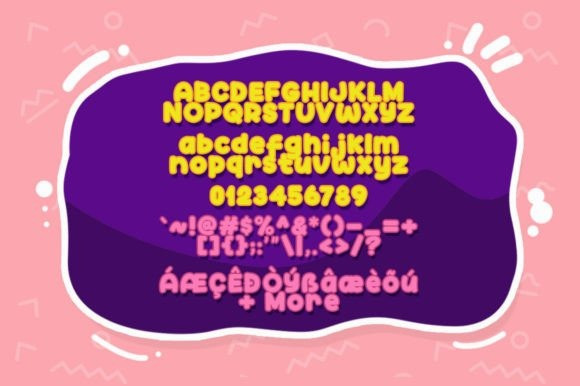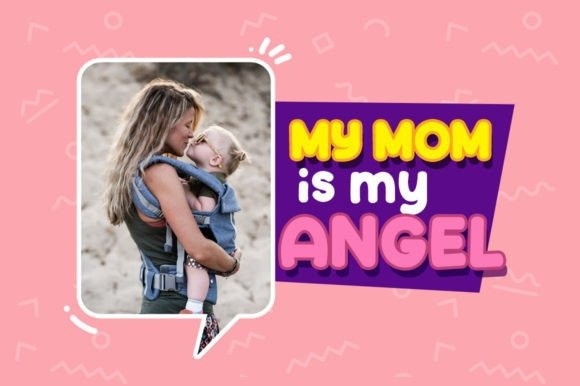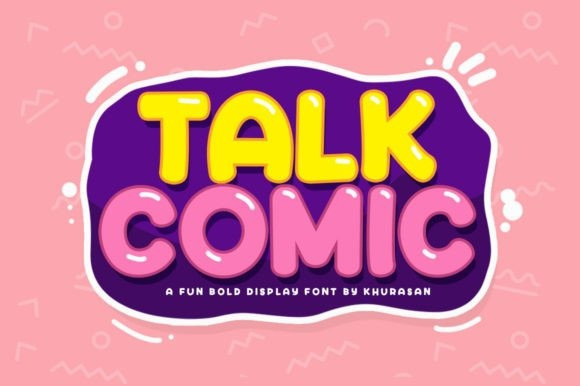
Talk Comic Font
Talk Comic Font is a modern and fancy display font perfect for posters, logos, magazines, book covers, banners, and many more! Get this cute display font, and use it to create lovely designs!